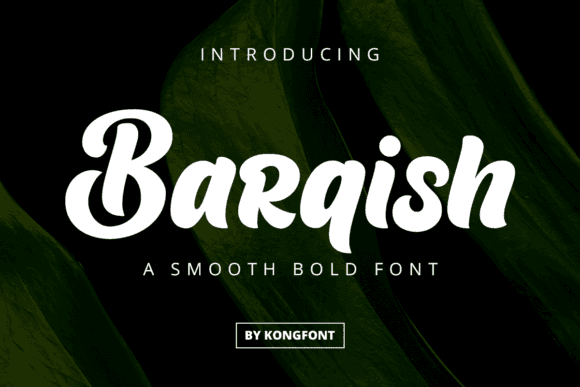
Barqish Font for Cricut, Silhouette and Printable Designs
Barqish is a digital typeface tailored for crafters, makers, and designers working with Cricut, Silhouette, and printable formats. Its elegant flow and balanced spacing make it a go-to choice for modern personalization projects and high-end DIY branding. The versatility of Barqish allows it to seamlessly integrate with various design styles, making it perfect for everything from intricate invitations to bold signage. Additionally, it pairs beautifully with the batik classic font for crafts, enhancing the overall aesthetic of any project. This unique combination elevates visual storytelling, ensuring that every piece radiates creativity and sophistication.
As a FONT entity, Barqish empowers precision-based design workflows, enabling detailed typography work across vinyl, paper, and printable goods without compromising readability or style.
- Perfect for Cricut and Silhouette cutting machines
- Clean strokes ideal for vinyl and print output
- Stylish yet readable at small or large sizes
| Feature | Barqish Font | Generic Script Font | Generic Sans Serif Font |
| Design Style | Elegant, smooth, crafting-ready | Casual or decorative handwritten | Clean, modern, functional |
| Primary Use | Vinyl, printables, packaging | Cards, party printables | Web content, UI design |
| Machine Compatibility | Excellent with Cricut/Silhouette | Moderate depending on stroke style | Limited for cutting workflows |
| Ease of Use | Beginner-friendly | Beginner to intermediate | Universal |
| Design Tone | Stylish, feminine, adaptable | Playful or rustic | Neutral or minimalist |